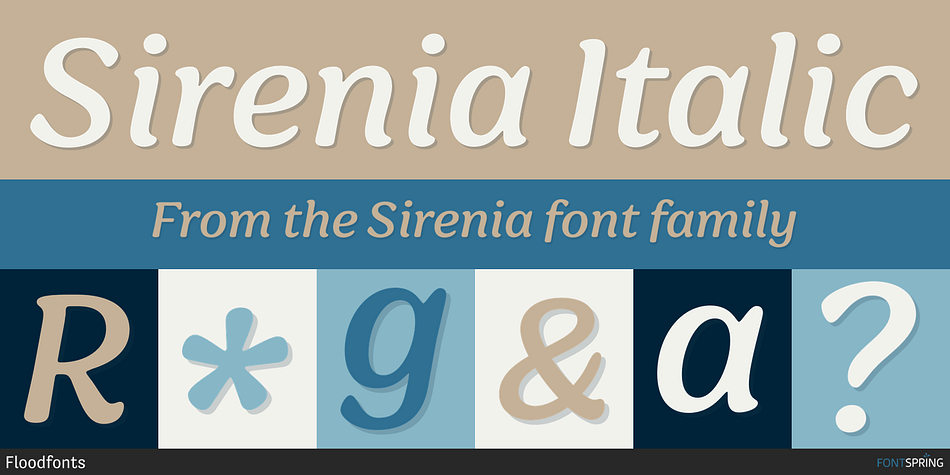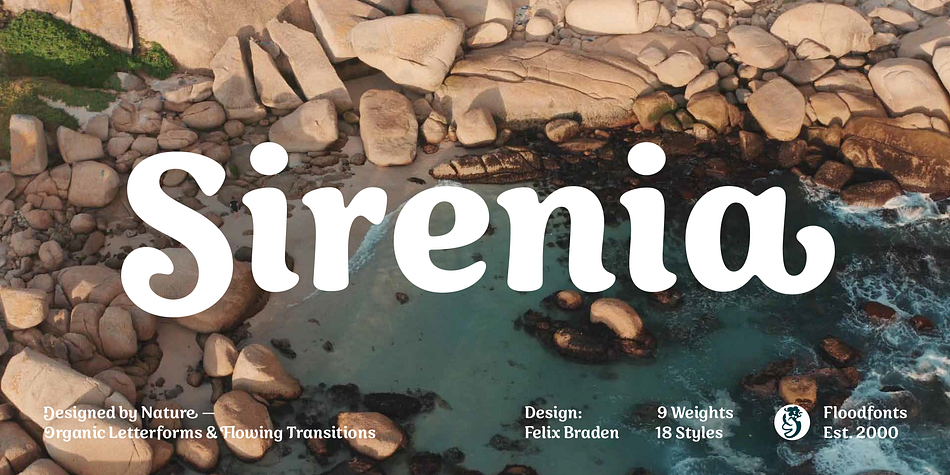
Sirenia Italic
Designed by Felix Braden, Sirenia is a serif font family. This typeface has eighteen styles and was published by Floodfonts.
Sirenia is a friendly display typeface for branding, packaging and advertising projects. It offers an easy way to create striking logotypes, as Sirenia’s 1270 characters contain many decorative letters and swashes for initial, medial and final letters that can be activated by open type features. This gives designers the ability to create lively logotypes according to their own ideas, matching the particular combination of letters.
Sirenia has a very organic look and feel, with rounded corners and flowing transitions – as if naturally grown. This authentic, natural look is ideal for lifestyle products, the food&beverage sector and for sustainable design.